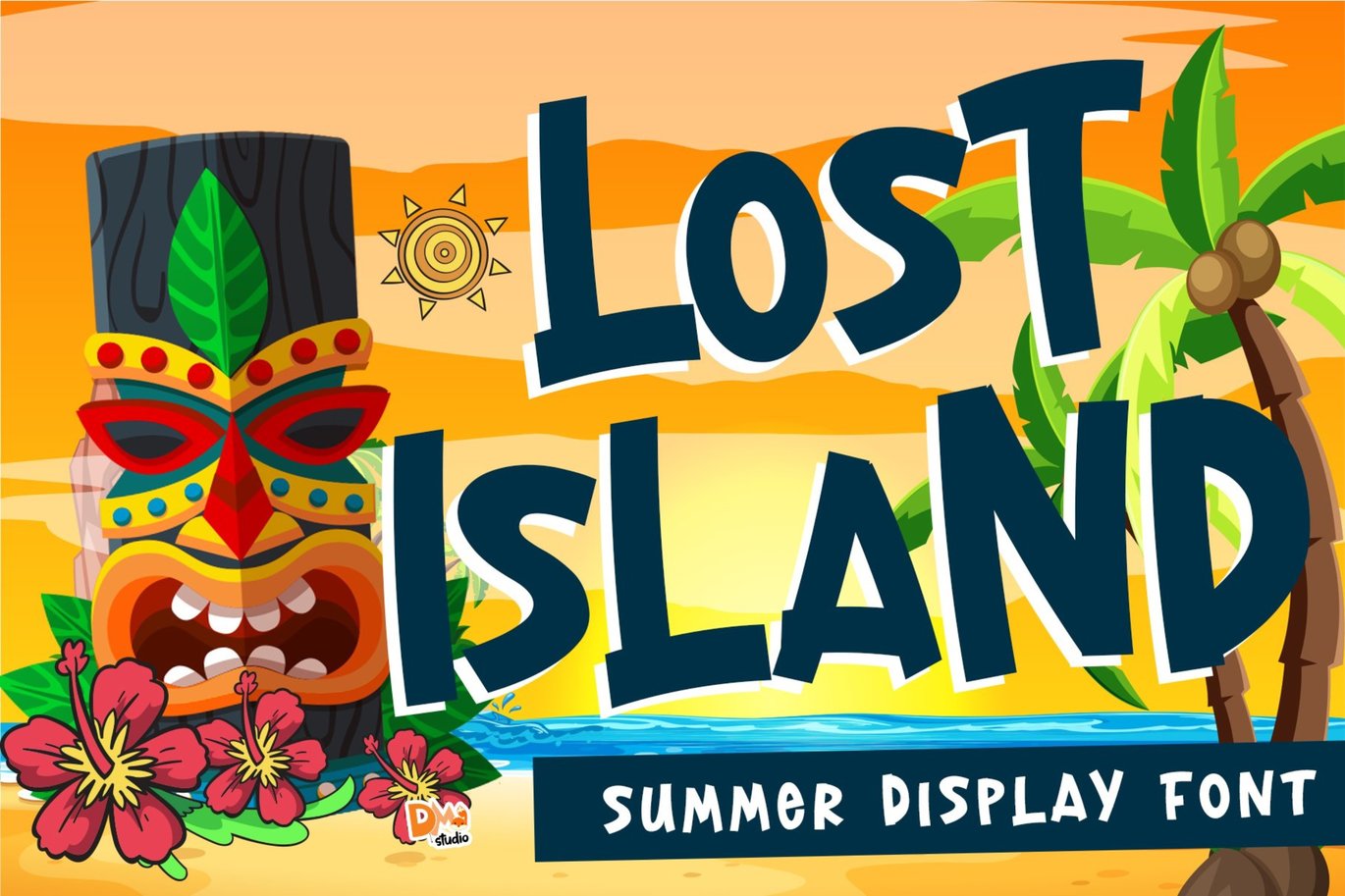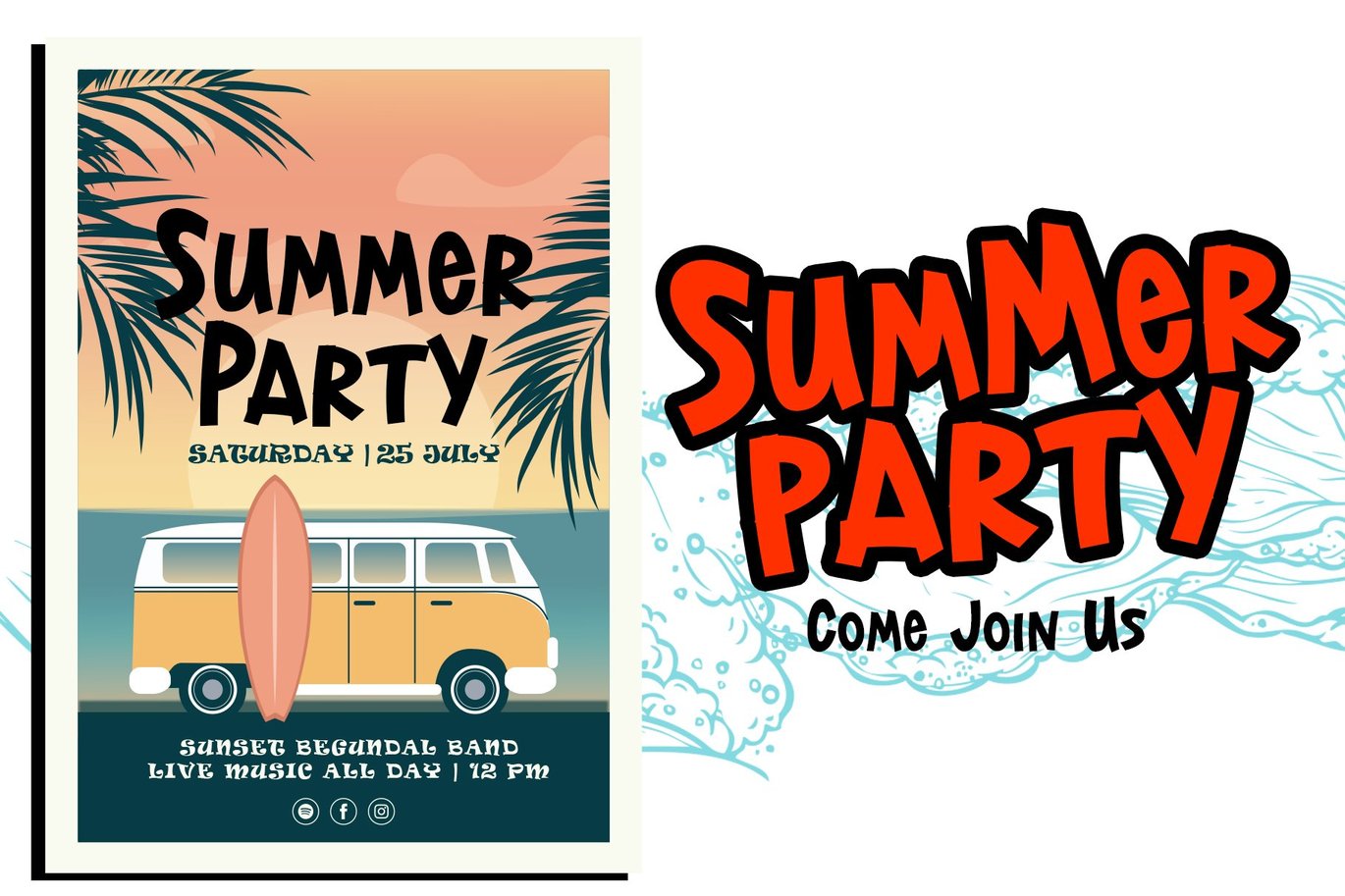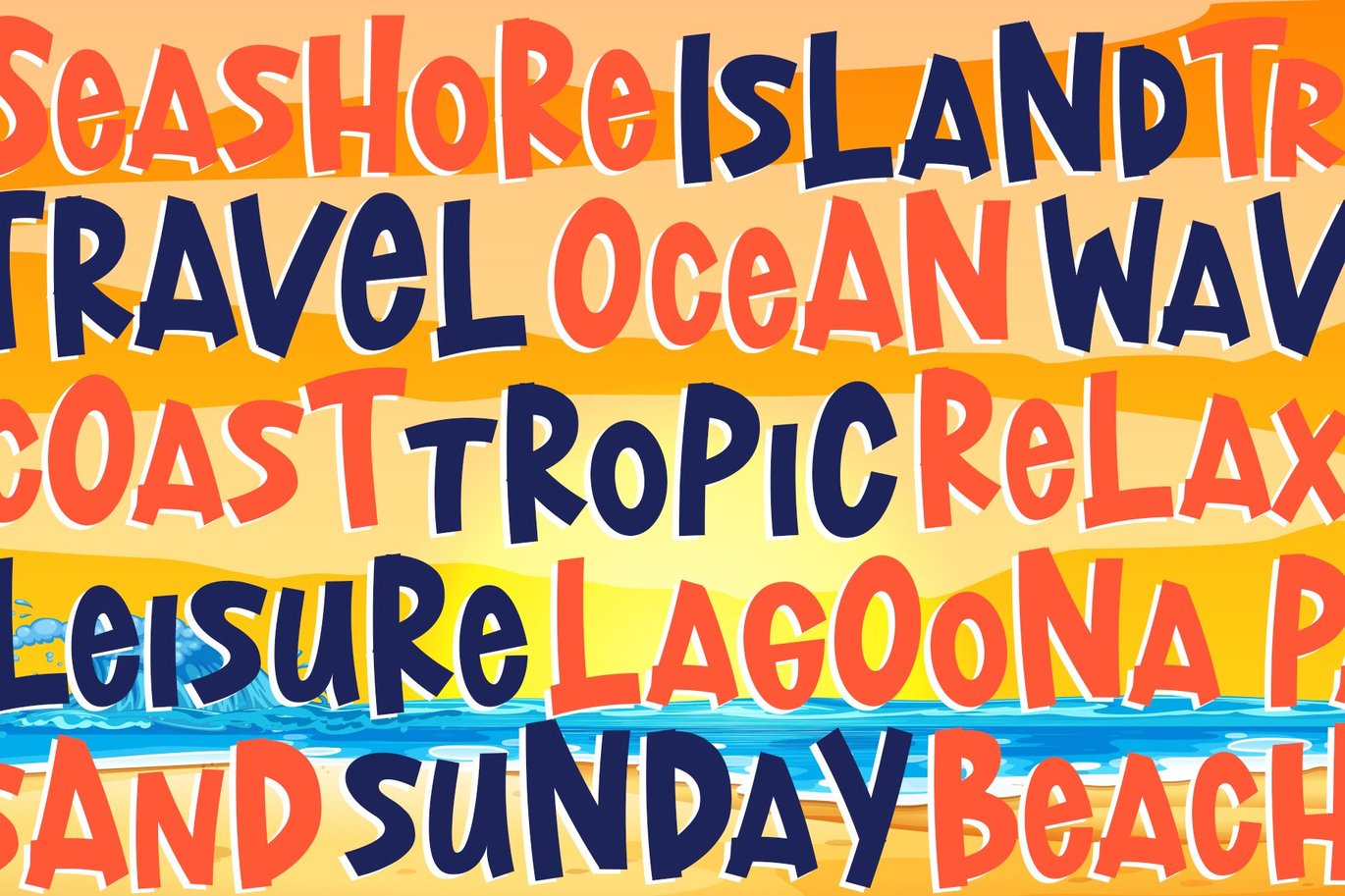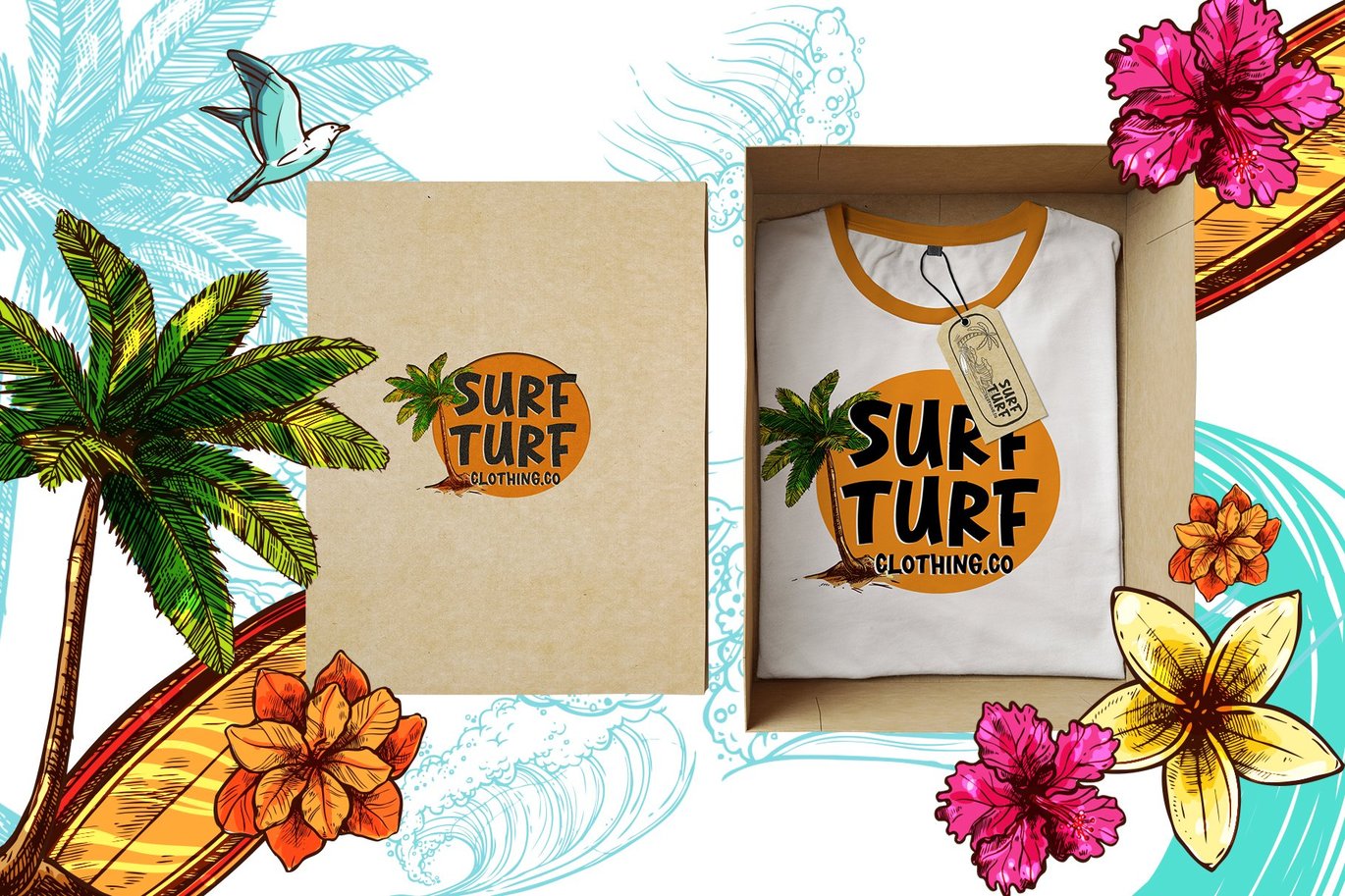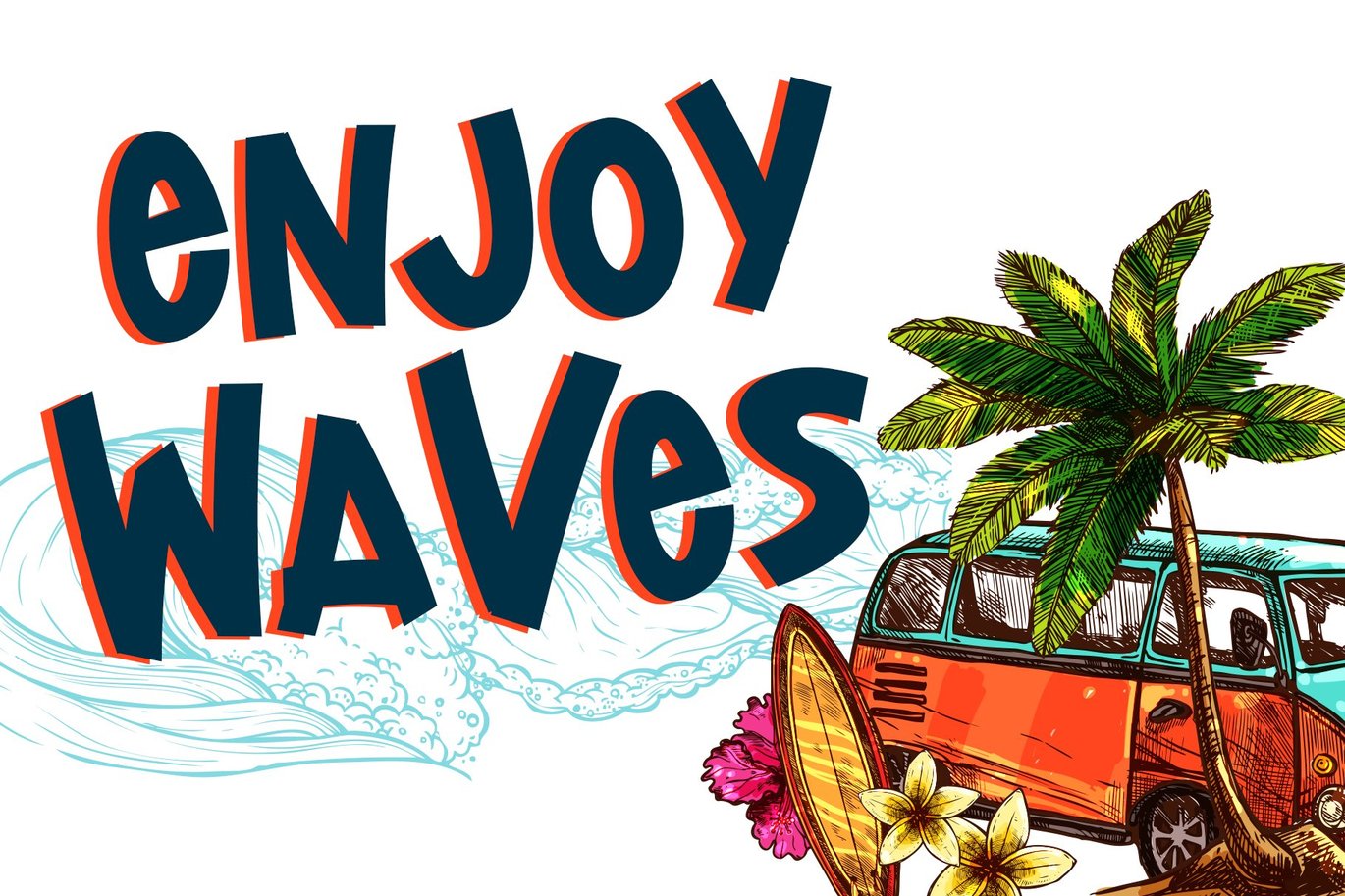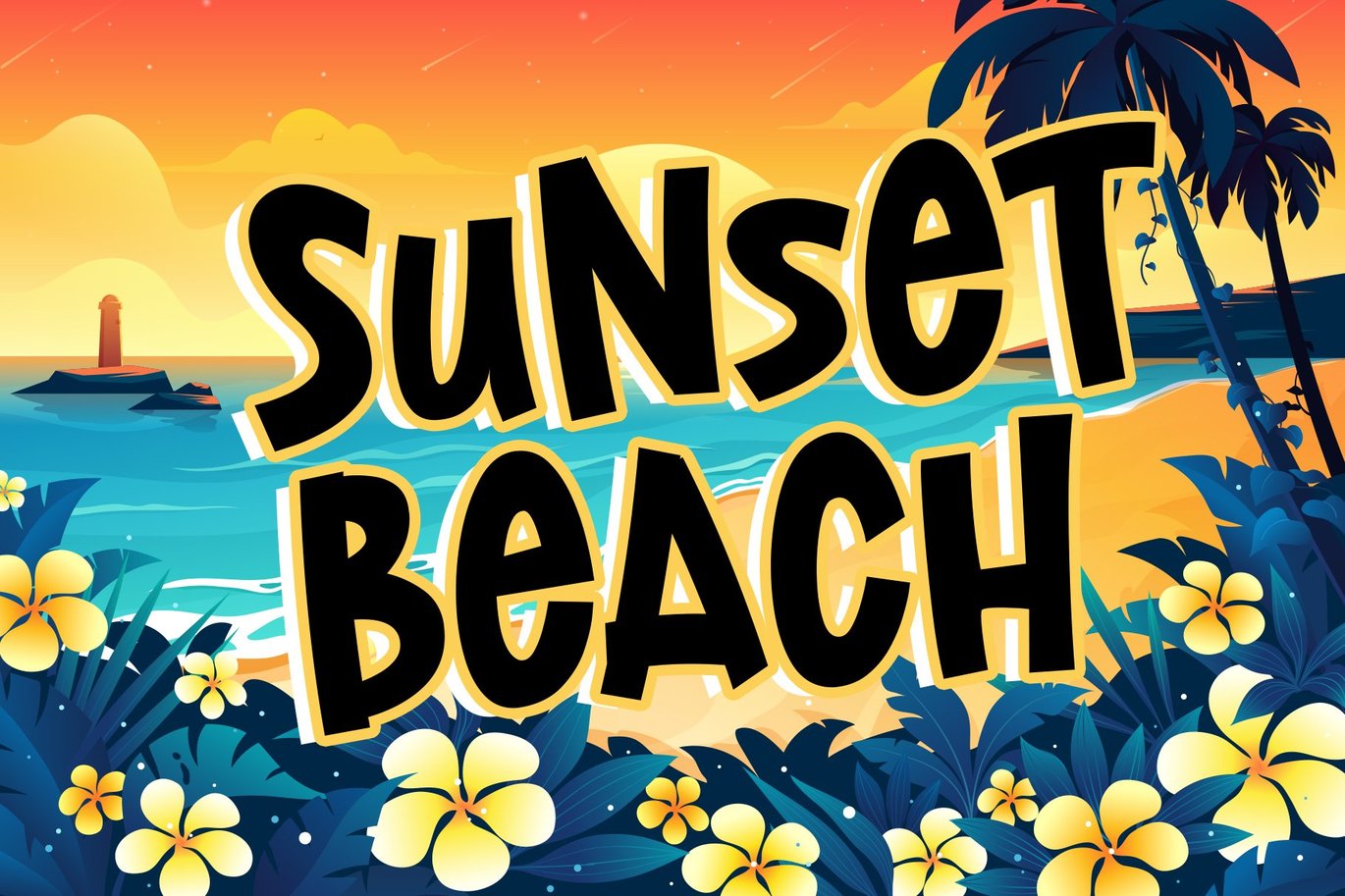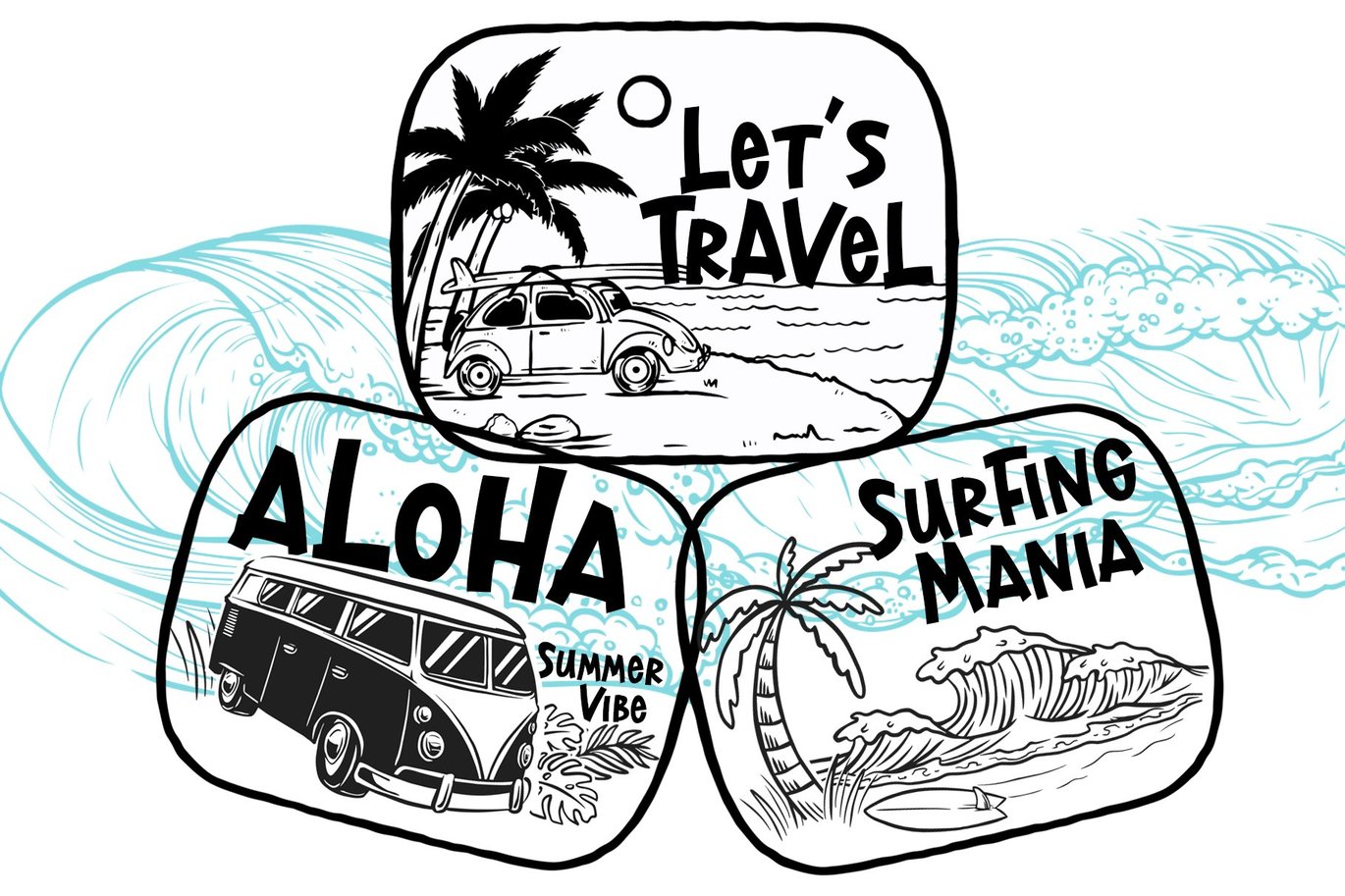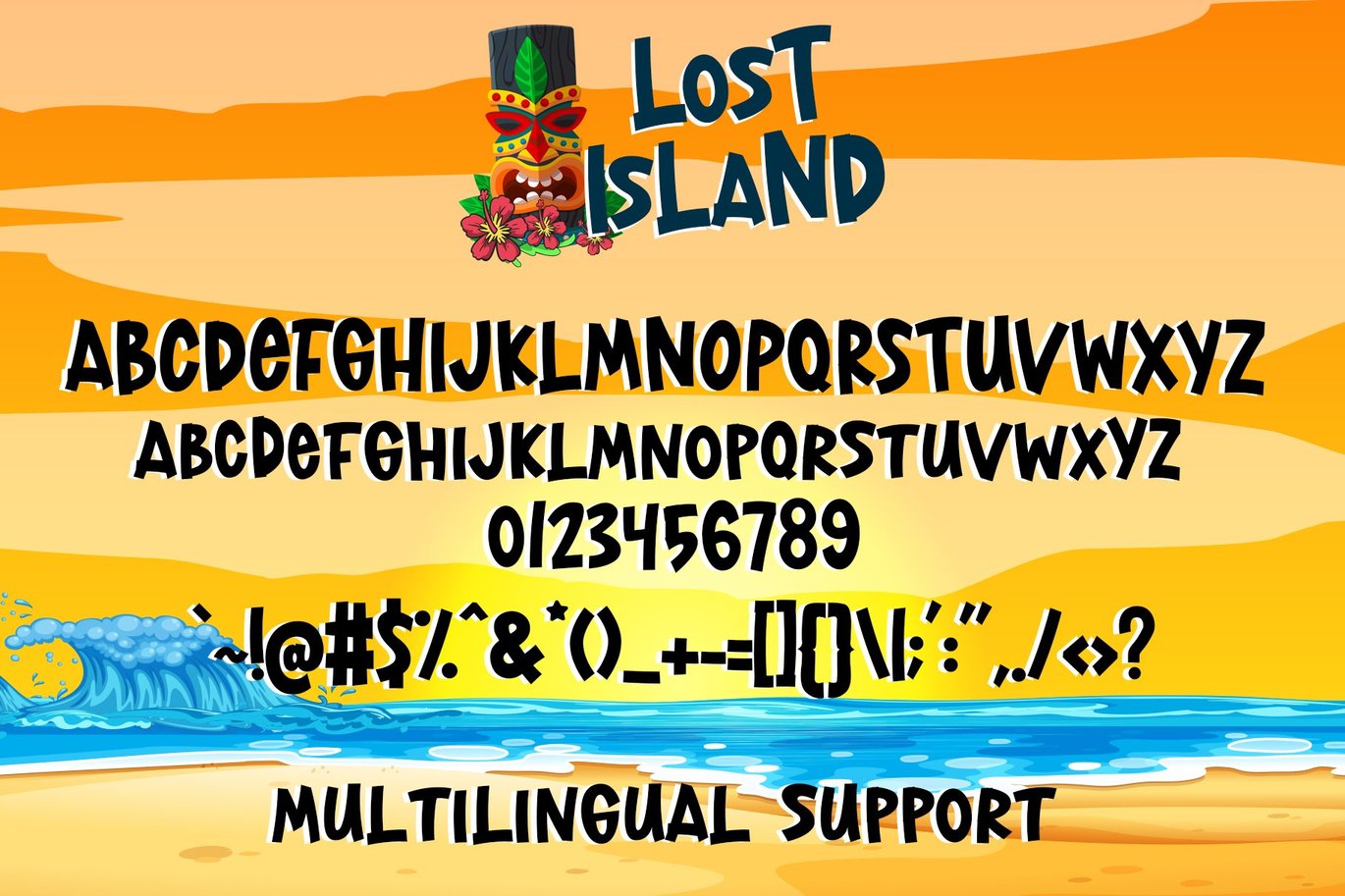
Lost Island – Summer Font
Introducing Lost Island, the summer display font ! This font comes with strong character and clean nodes, great for quotes, cutting, printing project, advertisments and some display craft.
All in caps with two heights ( uppercase and lowercase )
Numbers
Symbols and punctuation